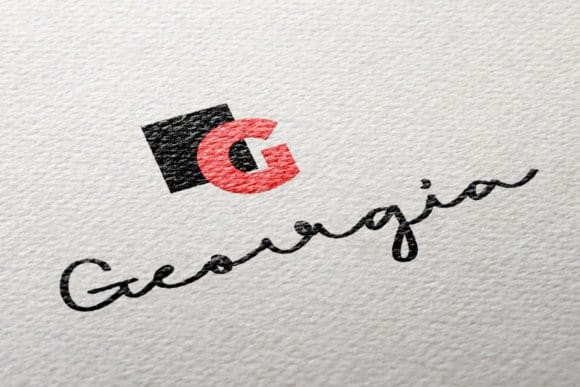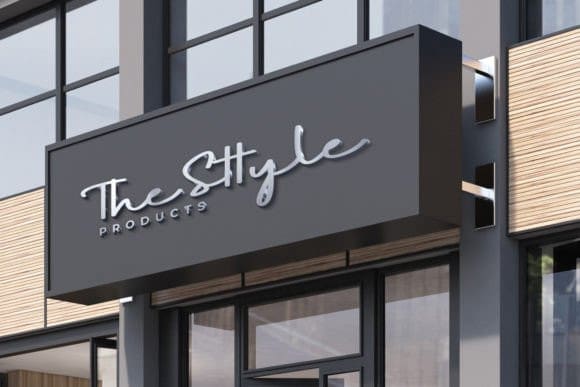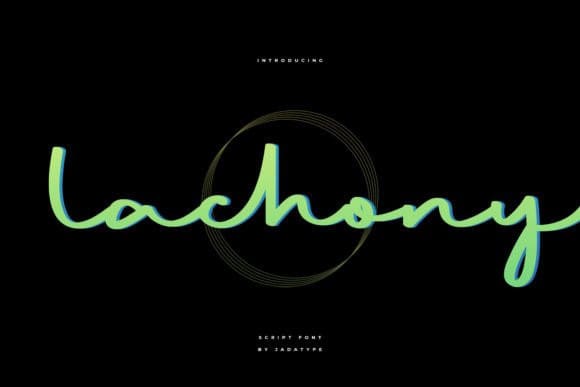
Lachony Handwritten Font
Lachony Handwritten Font is a stylish brush handwritten font suitable for branding, social media posts, products, advertisements, and many more. Add it now to your favorite creative projects, and they will become true works of art!